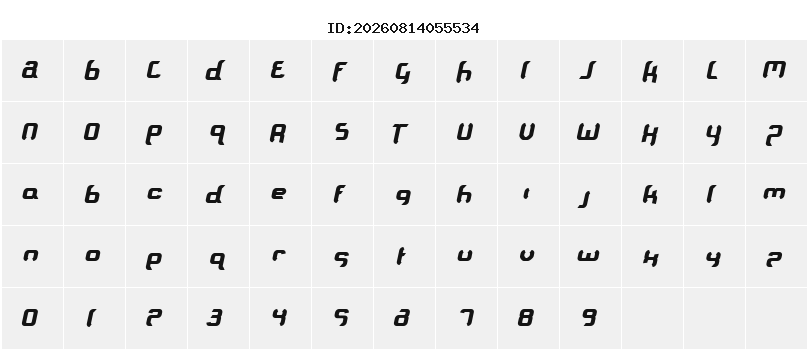
Supersoulfighter Preview
• Font Name: Supersoulfighter
• Full Font Name: Supersoulfighter
• PostScript Name: Supersoulfighter
About Supersoulfighter.ttf
Supersoulfighter.ttf is a modern, elegant sans-serif font designed for ultimate readability and visual harmony. Perfect for branding, headlines, web design, and print materials.